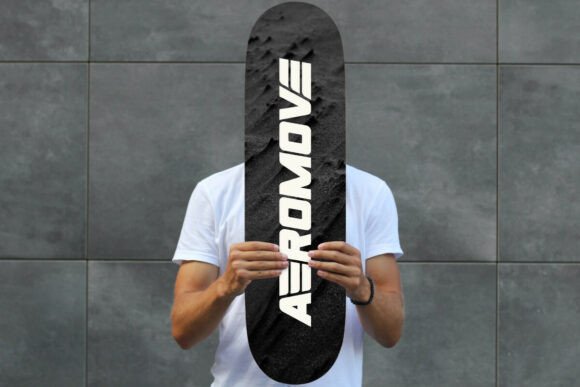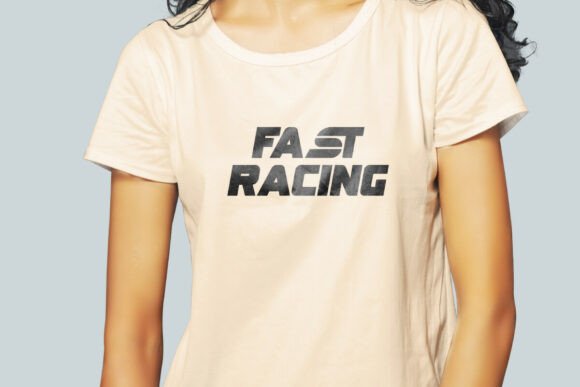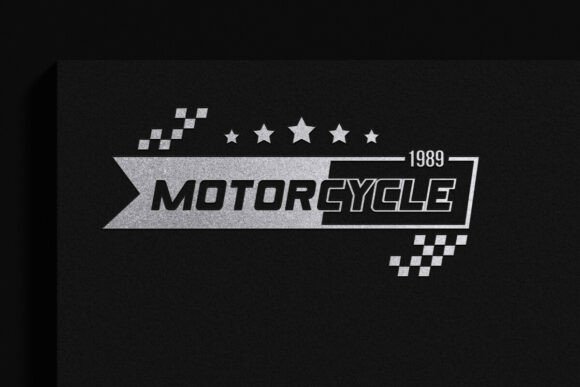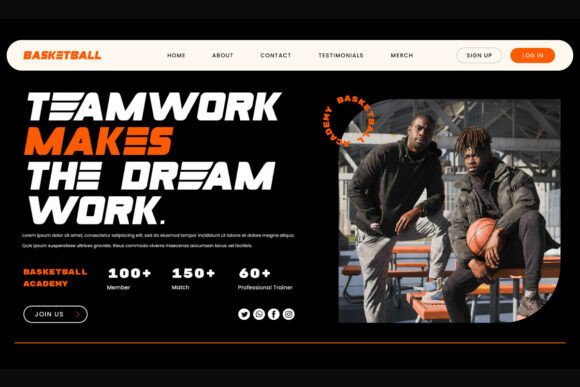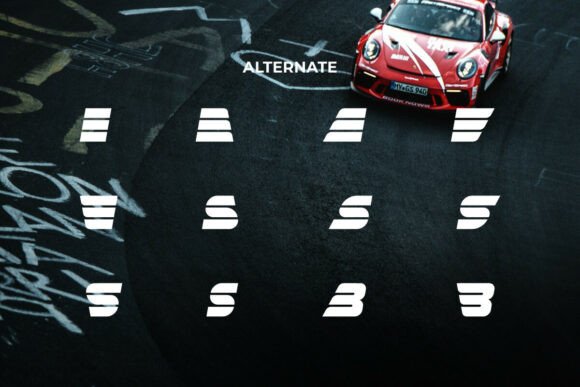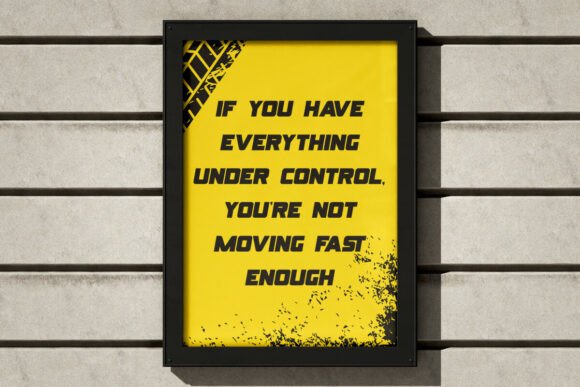
Unlocking the Power of Aeromove Font: A Designer’s Best Friend
Have you ever been in the middle of a project, pouring your heart and soul into every detail, only to hit a roadblock when it comes to finding the perfect font? I certainly have. It was during one of those moments, working on a sleek and modern design for a tech startup, that I stumbled upon the Aeromove Font. This game-changing font has been a staple in my design toolkit ever since.
Aeromove Font: The Ultimate Design Powerhouse
Aeromove Font is a modern racing display font that’s specifically designed to bring a sense of speed and movement to your designs. Inspired by the world of aero and wing planes, this font boasts a unique directional winged slant that sets it apart from the rest. With its clean lines, geometric form, and high-impact style, Aeromove is the perfect choice for designers looking to make their creations stand out in a crowded digital landscape.
Ideal for a Wide Range of Design Projects
Whether you’re working on apps, banners, billboards, brochures, covers, decals, logos, headlines, posters, print projects, signs, stickers, websites, or more, Aeromove Font is the perfect companion. Its versatility knows no bounds, making it an excellent choice for:
- Tech branding
- Sports posters
- Digital ads
- Gaming graphics
- Modern product packaging
- Accessories and merchandise
- Aviation and camper retail
- Clothing and more
What I Love About Aeromove Font ✨
- ✅ Unique and eye-catching design: Aeromove Font is unlike any other font out there. Its distinctive winged slant and geometric form make it an instant attention-grabber.
- ✅ Highly versatile: This font can be used for a wide range of design projects, from digital ads to print materials.
- ✅ Easy to read: Despite its bold and edgy design, Aeromove Font remains surprisingly easy to read, even at smaller sizes.
- ✅ OpenType features: Aeromove Font comes with a range of OpenType features, including stylistic alternates and glyphs, which can be used to add an extra layer of creativity to your designs.
- ⚠️ Limited use for body text: While Aeromove Font is perfect for headlines and titles, it’s not the best choice for body text due to its bold and edgy design.
- ⚠️ May not work well with certain design styles: Aeromove Font’s unique design may not mesh well with certain design styles, such as vintage or minimalist designs.
The Story Behind Aeromove Font
Aeromove Font was designed with the goal of creating a font that would evoke the sense of speed and movement. The designer, who is an aviation enthusiast, was inspired by the world of aero and wing planes and wanted to create a font that would capture the essence of flight. The result is a font that’s both modern and dynamic, with a unique directional winged slant that sets it apart from other fonts.
Q: What is Aeromove Font used for?
A: Aeromove Font is ideal for a wide range of design projects, including tech branding, sports posters, digital ads, gaming graphics, and modern product packaging.
Q: Is Aeromove Font easy to read?
A: Despite its bold and edgy design, Aeromove Font remains surprisingly easy to read, even at smaller sizes.